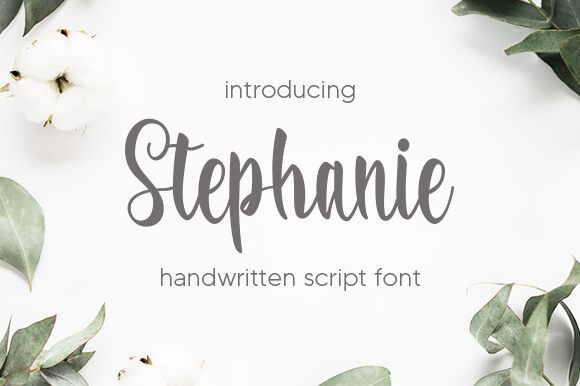
Stephanie
Stephanie is a light, narrow handwritten font designed by Aldi Raya Pradipta. It's perfect for adding a personal touch to projects such as invitations, greeting cards, logos and branding. Give your work warmth and personality with Stephanie!